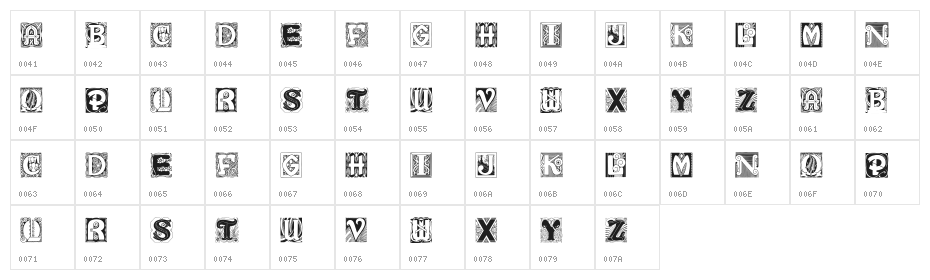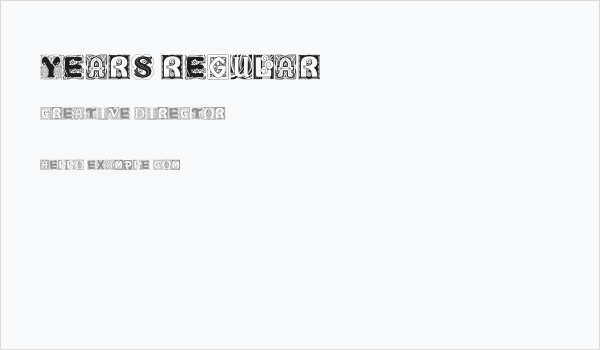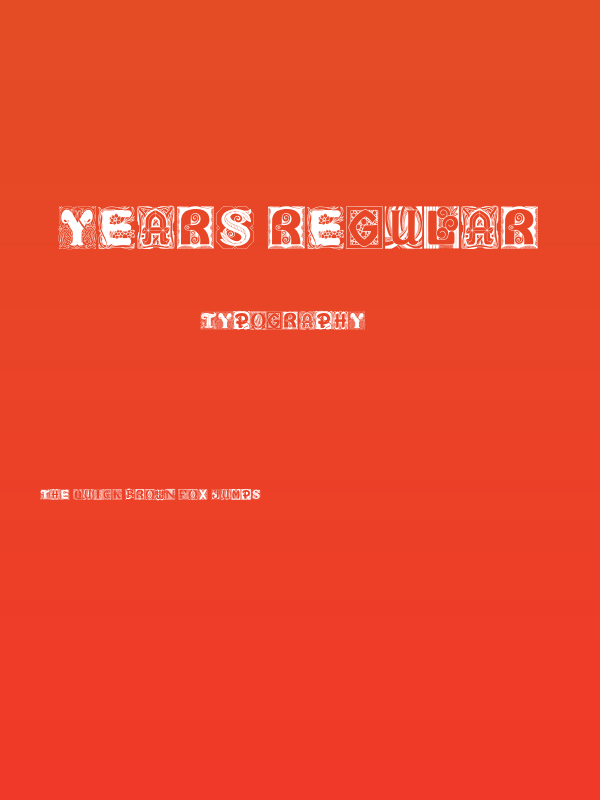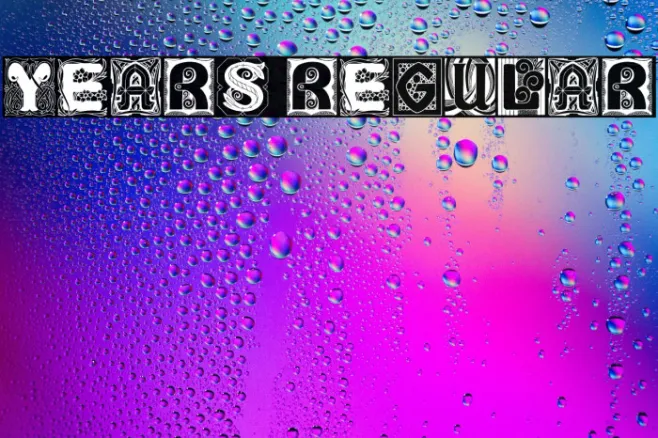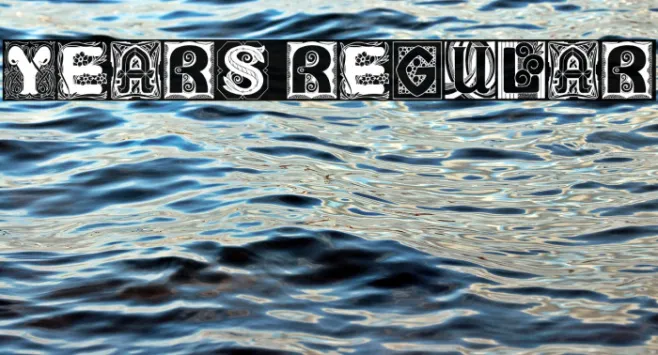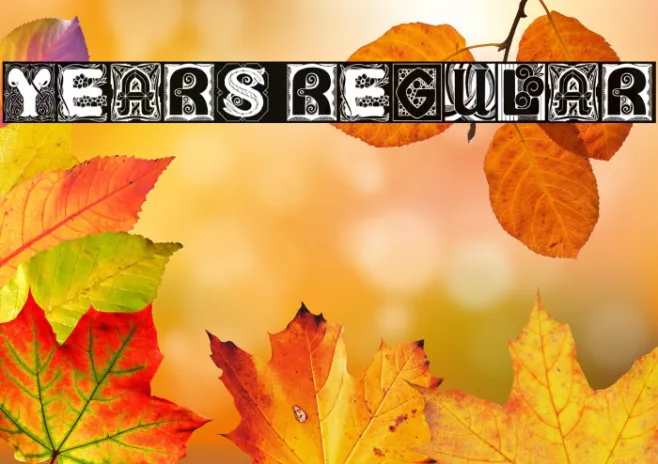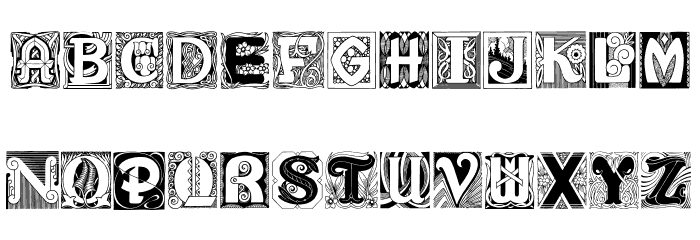
Years Regular Font
Years Regular Description
This font is a highly decorative and ornate typeface, characterized by its intricate patterns and detailed embellishments within each letter. Each character is enclosed in a square, with elaborate designs that vary from floral motifs to geometric shapes, creating a visually striking and artistic appearance. The font is reminiscent of vintage or Victorian styles, making it ideal for projects that require a touch of elegance and sophistication. The complexity of the designs suggests a focus on display purposes rather than readability in body text.
| Proposed Projects | Ideal for use in invitations, posters, book covers, and branding projects that require a vintage or artistic touch. |